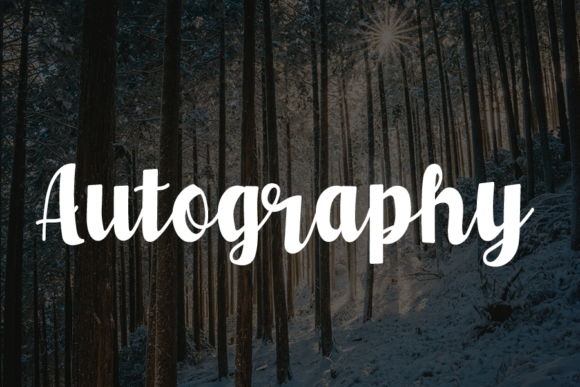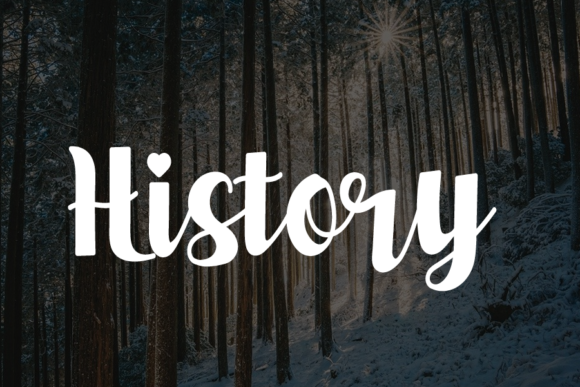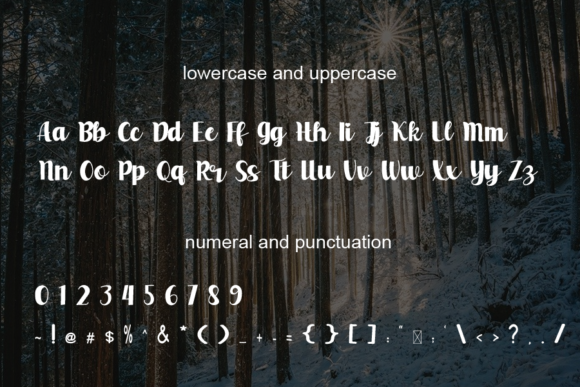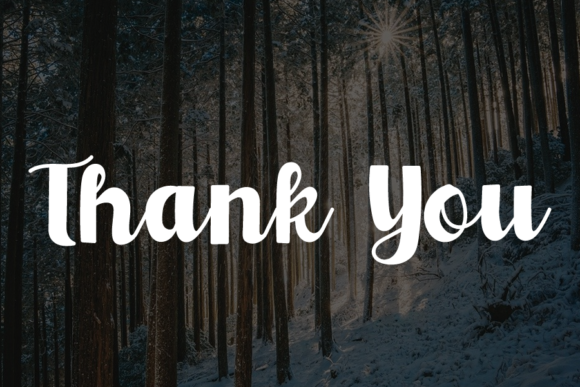
Introducing Handling Font: Elevate Your Designs with Elegant Handwritten Style
Are you looking for a font that adds a touch of sophistication and personality to your designs? Look no further than Handling Font, a beautiful paint-brushed, elegant handwritten font. With its unique and stylish aesthetic, Handling Font is perfect for a variety of design projects that require a personalized touch, such as wedding invitations, thank you cards, weddings, greeting cards, logos, and more.
What Makes Handling Font Special?
Handling Font stands out from other fonts due to its distinctive paint-brushed style, which gives it a warm and inviting feel. The elegant handwritten design makes it perfect for designs that require a personal and sophisticated touch. Whether you’re creating wedding stationery, designing a logo, or crafting a greeting card, Handling Font is sure to impress.
Wedding planners, designers, and crafters, rejoice! Handling Font is an excellent choice for creating stunning wedding invitations, save-the-date cards, and other wedding stationery. The font’s elegant and sophisticated design will add a touch of luxury to your wedding designs, making them truly unforgettable. Additionally, Handling Font is also suitable for other event designs, such as baby showers, birthday parties, and anniversaries.
Enhance Your Brand with Handling Font
Are you looking for a font that will help you establish a unique brand identity? Handling Font can help you achieve that. Its distinctive style makes it perfect for creating logos, business cards, and other branding materials that require a personal touch. With Handling Font, you can add a touch of elegance and sophistication to your brand, setting it apart from the competition.
Easy to Use and Versatile
Handling Font is easy to use and can be applied to a wide range of design projects. Whether you’re working with digital design software or printing on paper, Handling Font will look great. The font is also highly versatile, making it suitable for various design styles, from modern to vintage and rustic.
Design Ideas with Handling Font
Here are some design ideas to get you started with Handling Font:
- Wedding invitations and save-the-date cards
- Thank you cards and greeting cards
- Wedding stationery and decorations
- Personalized gifts and crafts
Tips for Using Handling Font Effectively
To get the most out of Handling Font, here are some tips to keep in mind:
- Use Handling Font in combination with other fonts to create visual interest
- Experiment with different colors and textures to add depth to your design
- Keep your design simple and elegant to let Handling Font shine
- Use Handling Font consistently across your design materials to establish brand identity
Handling Font is a beautiful and elegant handwritten font that can elevate your designs to the next level. With its paint-brushed style and sophisticated aesthetic, it’s perfect for a variety of design projects that require a personalized touch. Whether you’re a designer, crafter, or DIY enthusiast, Handling Font is an excellent choice for adding a touch of luxury and elegance to your designs.